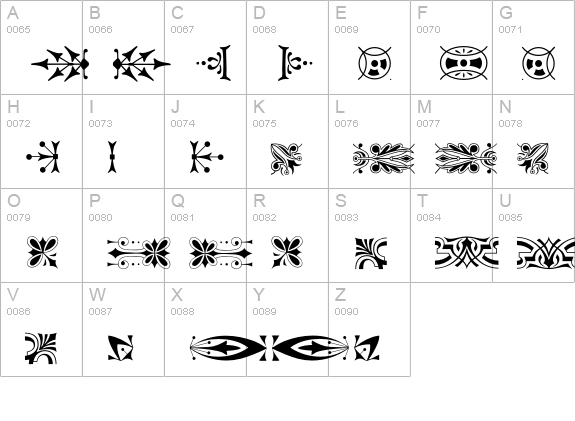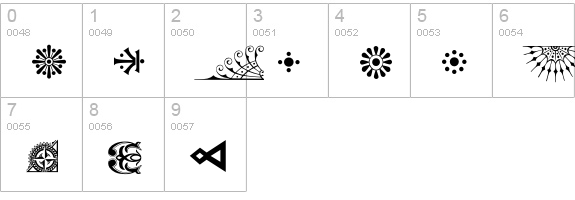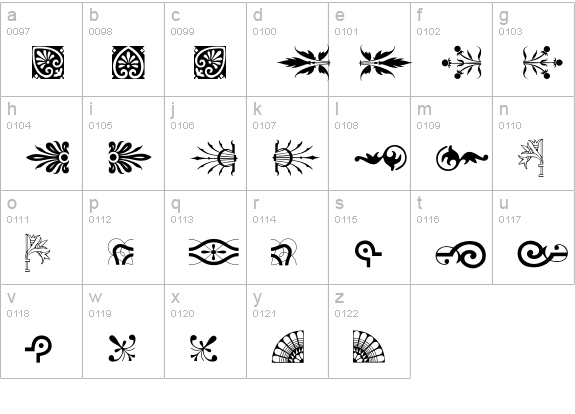
P22Victorian-OrnamentsOne font is a magnificent collection of ornate and intricate Victorian-inspired ornaments that will elevate any design project to new heights of elegance and sophistication. With its delicate details and exquisite craftsmanship, this font captures the essence of the Victorian era, a time characterized by opulence and grandeur. Every swirl, flourish, and decorative element in P22Victorian-OrnamentsOne font has been meticulously crafted to bring a touch of old-world charm and grace to your designs. Whether you are working on invitations, posters, logos, or any other creative endeavor, this font will add a touch of class and refinement that is sure to impress. What makes P22Victorian-OrnamentsOne font even more extraordinary is that it is freely available to download at FontsMarket.com. This means that you can now access this exquisite collection of Victorian-inspired ornaments without any cost. By offering this font for free, the creators have made it accessible to designers of all levels, ensuring that everyone can add a touch of Victorian elegance to their projects. So, if you are looking to infuse your designs with the timeless beauty of the Victorian era, look no further than P22Victorian-OrnamentsOne font. With its intricate details, ornate flourishes, and freely available download, this font is the perfect choice for adding a touch of class and sophistication to any design project. Download it now at FontsMarket.com and let your creativity flourish.